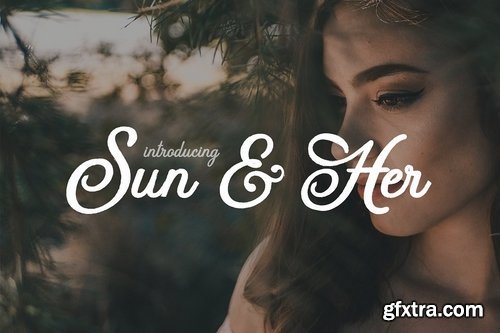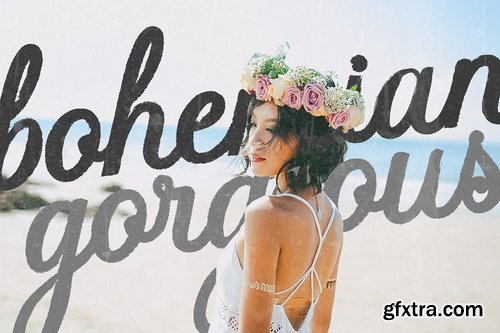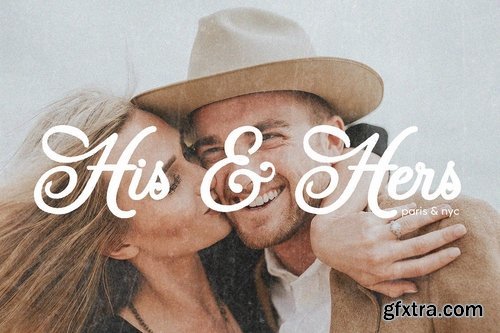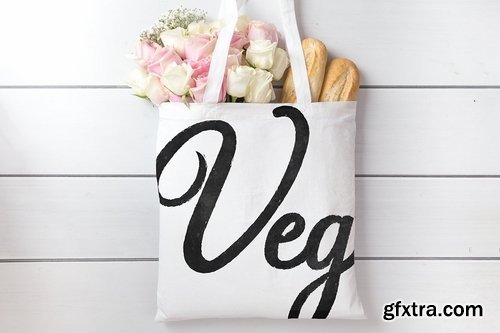
Introducing "Sun & Her" a gorgeous new rough script font perfect for branding, logo design, websites, social media posts and so much more. Grab your copy now for our introductory rate of $12 for a short time only. We hope you love it as much as we do.